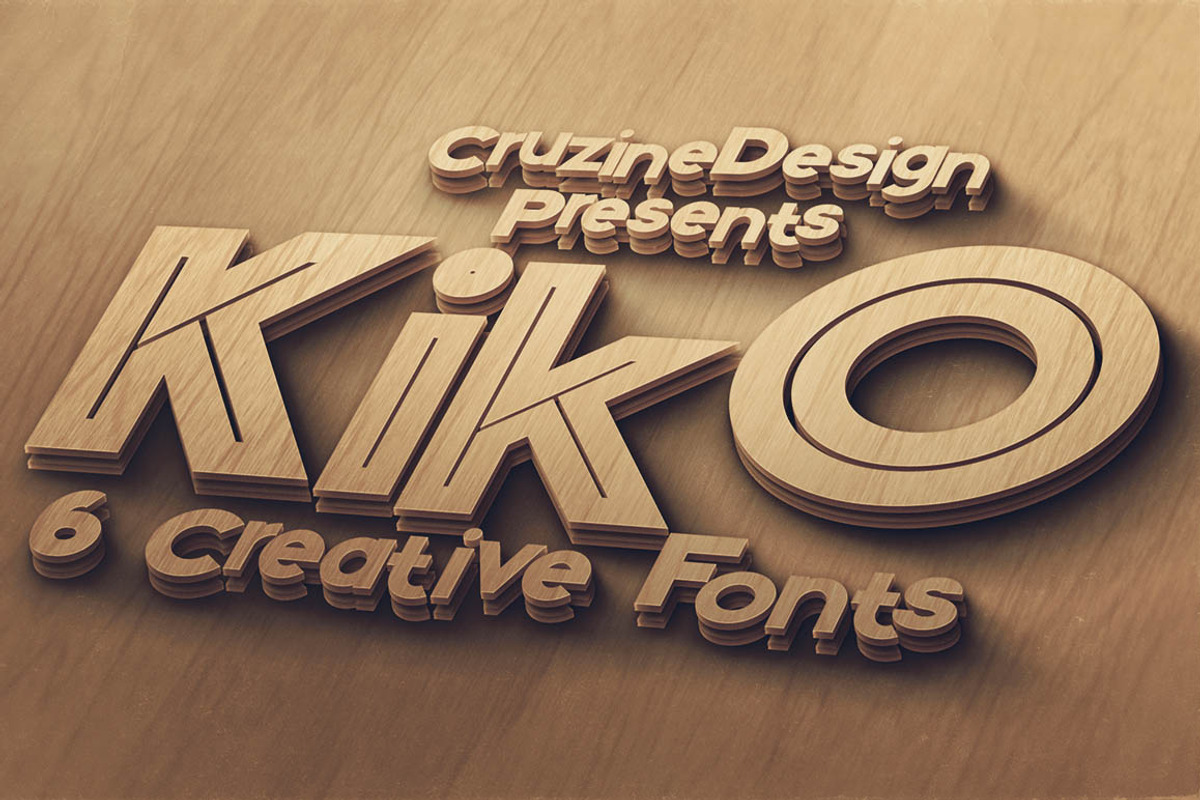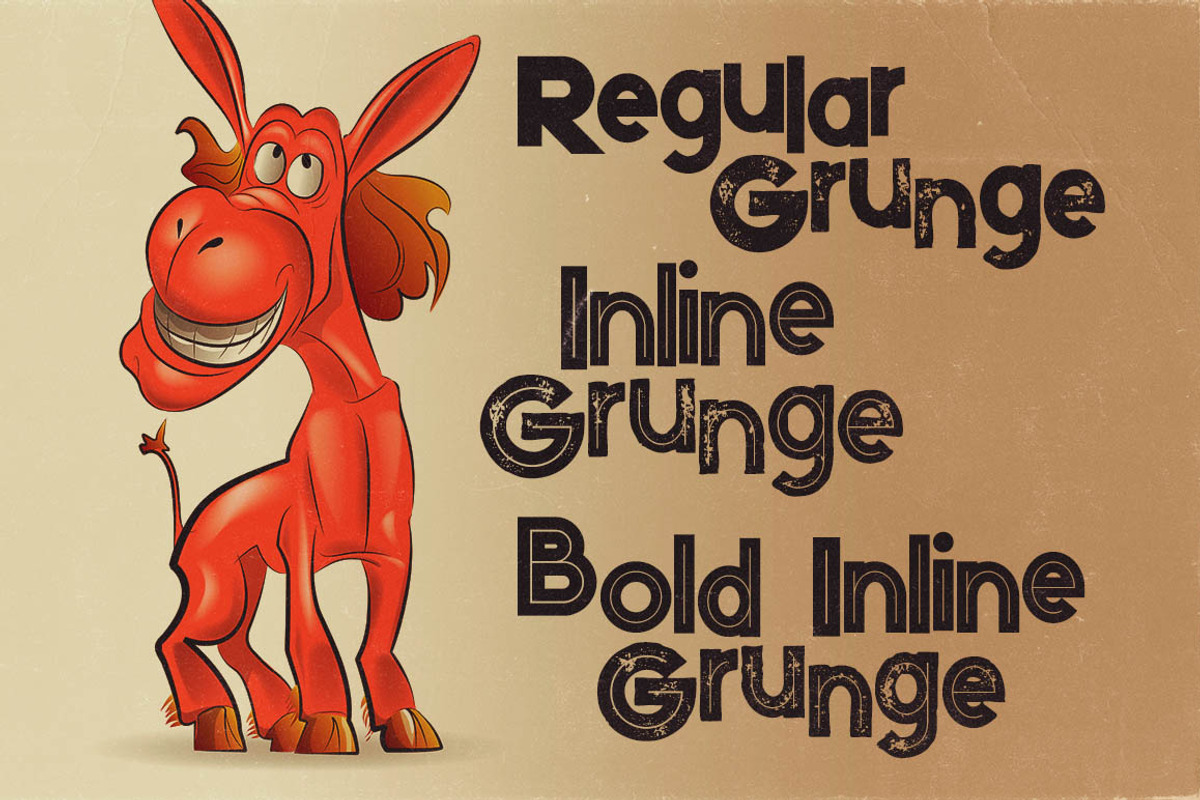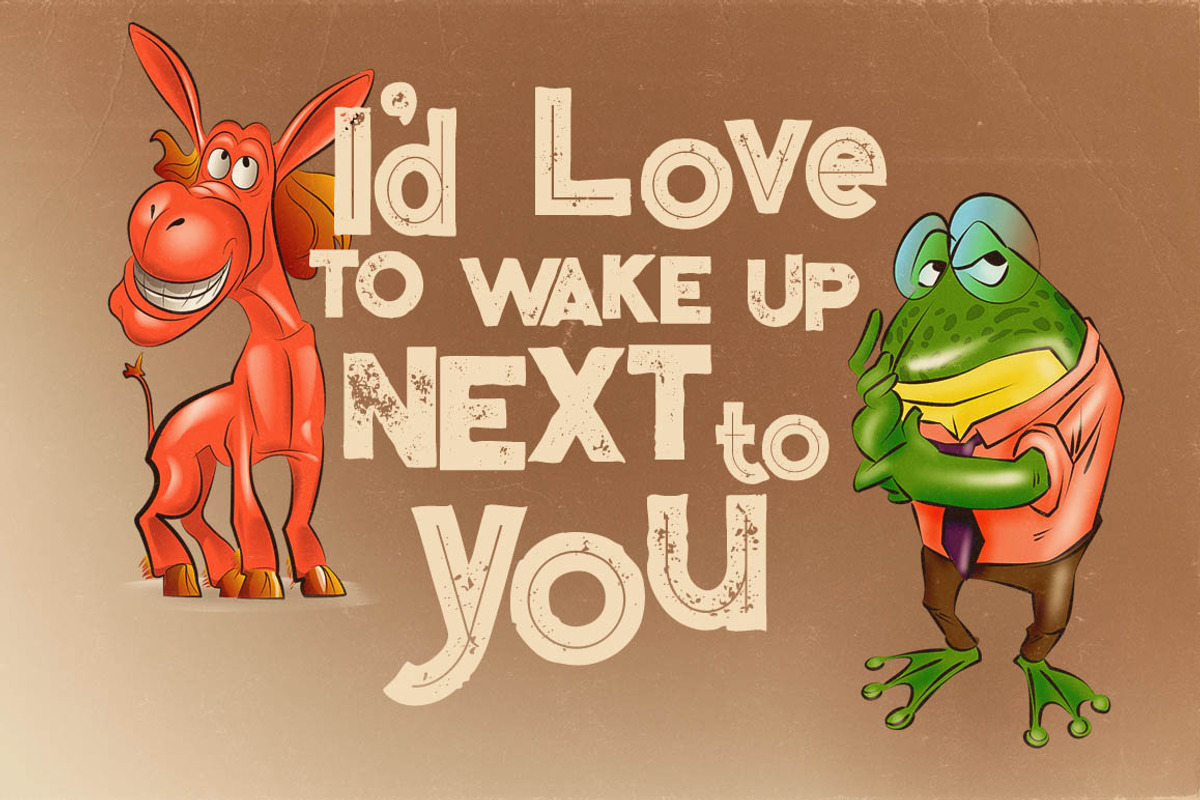
Kiko - Funny Display Font
Kiko - Funny Display Font by Cruzine is a font selected for branding, posters, packaging, typography.
Why Kiko - Funny Display Font is worth a look
Kiko - Funny Display Font by Cruzine fits naturally into Branding, posters, packaging, typography.